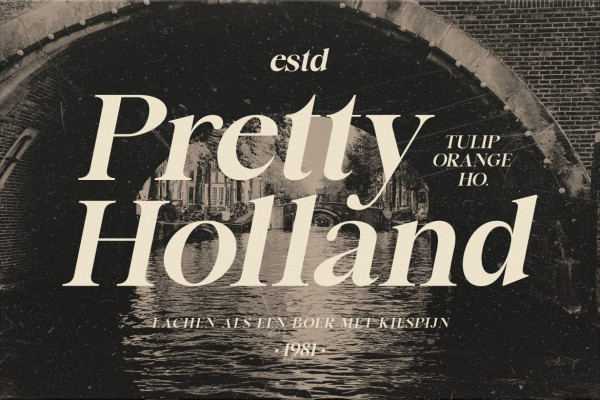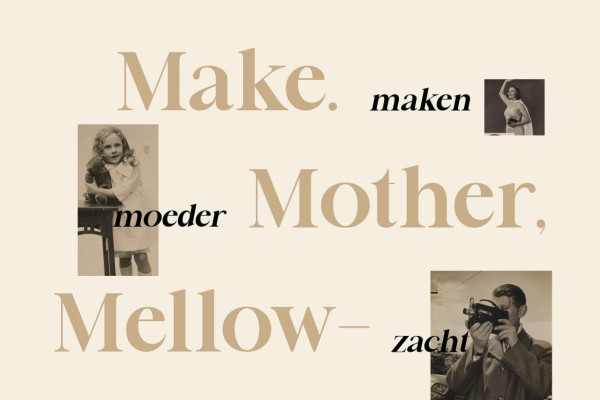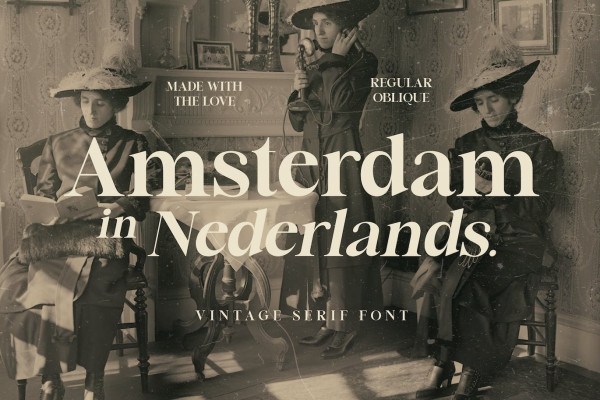
Amsterdam Serif Font
Amsterdam Serif Font is an elegant business serif font. Comes with regular and oblique version. This font makes a harmonious combination for your modern and classic layouts. Perfect for any luxury design like hotel logo, restaurant menu, restaurant poster or web, wedding invitation, and many others